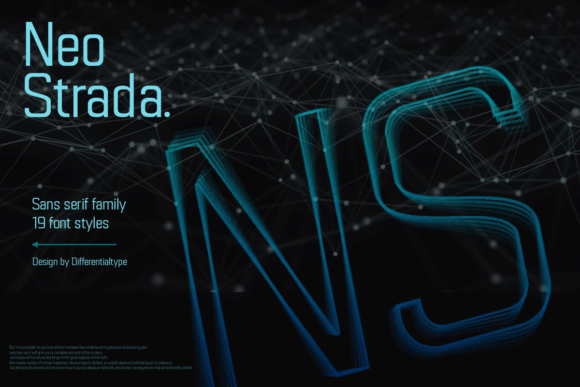
Introducing Neo Strada Font, the display font that empowers your web presence with its striking geometric lines. Crafted by Differentialtype, this font family is a symphony of weights and alternates, offering limitless possibilities for your creative endeavors.
Neo Strada's bold strokes command attention, making it the perfect choice for logos that leave an unforgettable mark. Its crisp lines and contemporary aesthetic elevate your designs, ensuring they stand out in the digital realm. Unleash your creativity on documents, websites, and social media posts, where Neo Strada's versatility shines through.
Engage your audience with captivating headlines, eye-catching call-to-actions, and thought-provoking blog posts. Neo Strada's adaptability extends to marketing campaigns, where its dynamic forms ignite your message and inspire conversions.